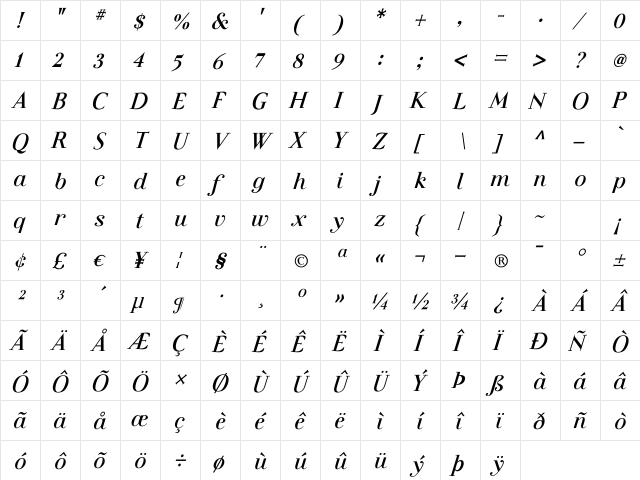
Felina SerifBold Italic Regular Font Preview
Design Context for Felina SerifBold Italic Typeface
Felina SerifBold Italic brings classic typographic sensibility to the table — its serifs and measured letterforms reflect centuries of print heritage. Its italic angle brings a sense of urgency and motion to the letterforms. Its bold stroke weight gives it real presence on the page.